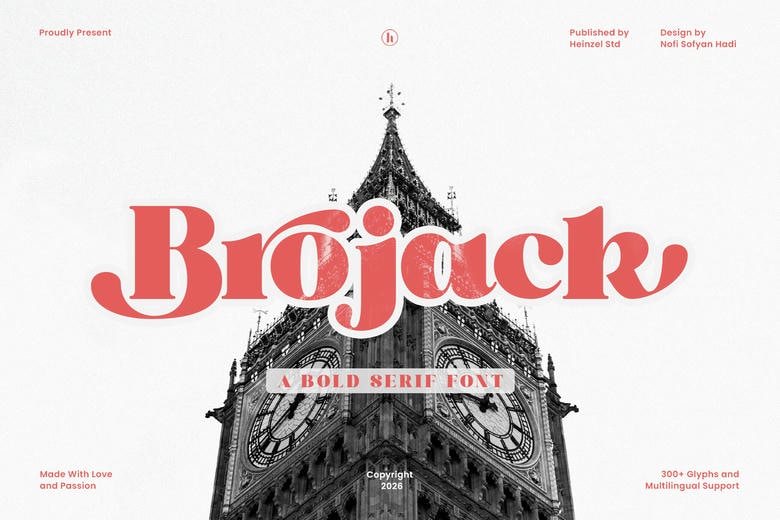
Brojack Serif Font
Brojack is a daring retro serif typeface that is based on vintage typography done in a modern way. Its good curves, bold lines, and graceful serifs render it fit in branding, logos, poster, packaging, headlines, and editorial designs. Brojack is a classic yet trendy appearance, which suits retro-themed projects, fashion brands, creative studios, and display typography.